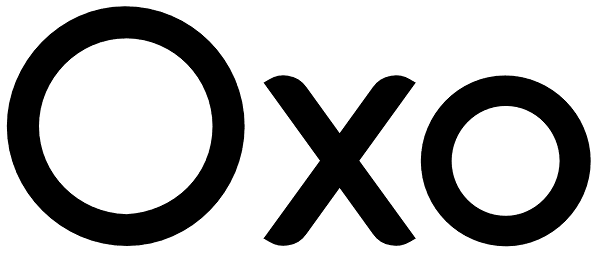
Oxo
Oxo is an expressive typeface from typedepot. Designed to be used as a decorative, headline font which quickly evolved into great new font usable for large amounts of text as well. Available in 4 weights - thin,light, regular and bold with their...